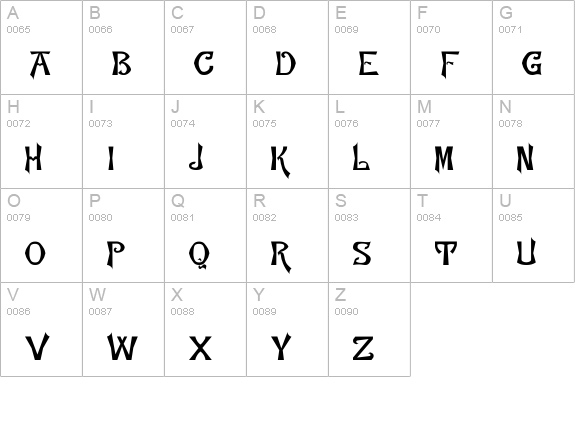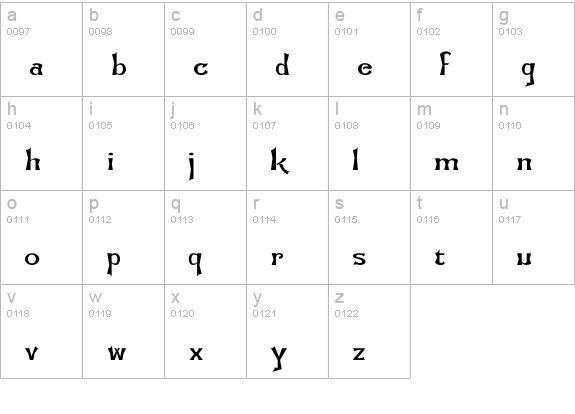
Flemish-Normal Wd Font Details
Flemish-Normal Wd is the standard, neutral variant in the Flemish typeface family \xE2\x80\x94 well suited to general body text, paragraphs, and standard typographic work.
Flemish-Normal Wd is a beautifully crafted font that exudes elegance and sophistication. Its clean lines and classic design make it a versatile choice for a wide range of projects, from branding to editorial design. The font strikes the perfect balance between traditional and modern aesthetics, making it ideal for both digital and print applications. The Flemish-Normal Wd font is available for free download at FontsMarket.com, where users can easily access this high-quality typeface for their creative endeavors. With its timeless appeal and exceptional readability, Flemish-Normal Wd is sure to elevate any design project and leave a lasting impression on viewers. Get your hands on this stunning font today and bring a touch of refinement to your work.